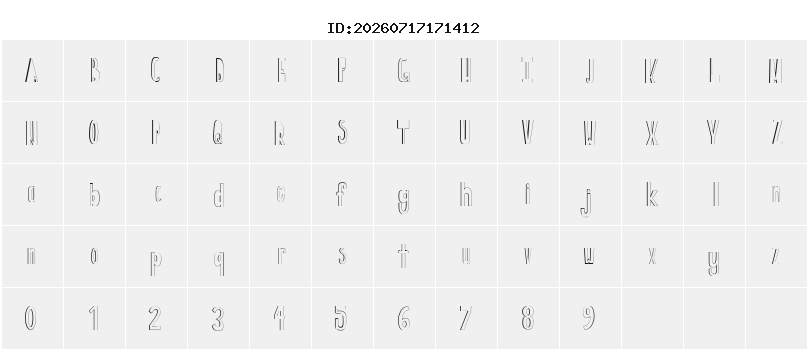
BigForehead Preview
• Font Name: BigForehead
• Font Style: BigForeheadRegular
• Full Font Name: BigForehead
• PostScript Name: BigForehead
About BigForehead.ttf
BigForehead.ttf is a modern, elegant sans-serif font designed for ultimate readability and visual harmony. Perfect for branding, headlines, web design, and print materials.